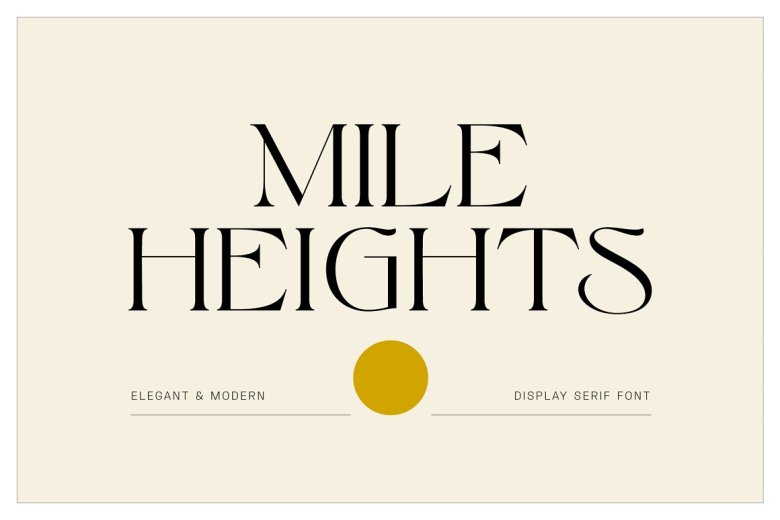
Mile Heights Font
Mile Heights is a classy and modern display typeface  in addition to some genuinely creative characters. This product is ideal for constructing logotypes & wordmarks, editorial designs, stationery, product packaging, and much more.
Mile Heights contains multilingual support and provides a total of 43 ligature options.
Mile Heights Elegant Serif Font